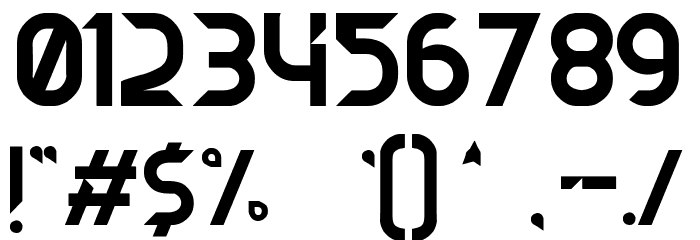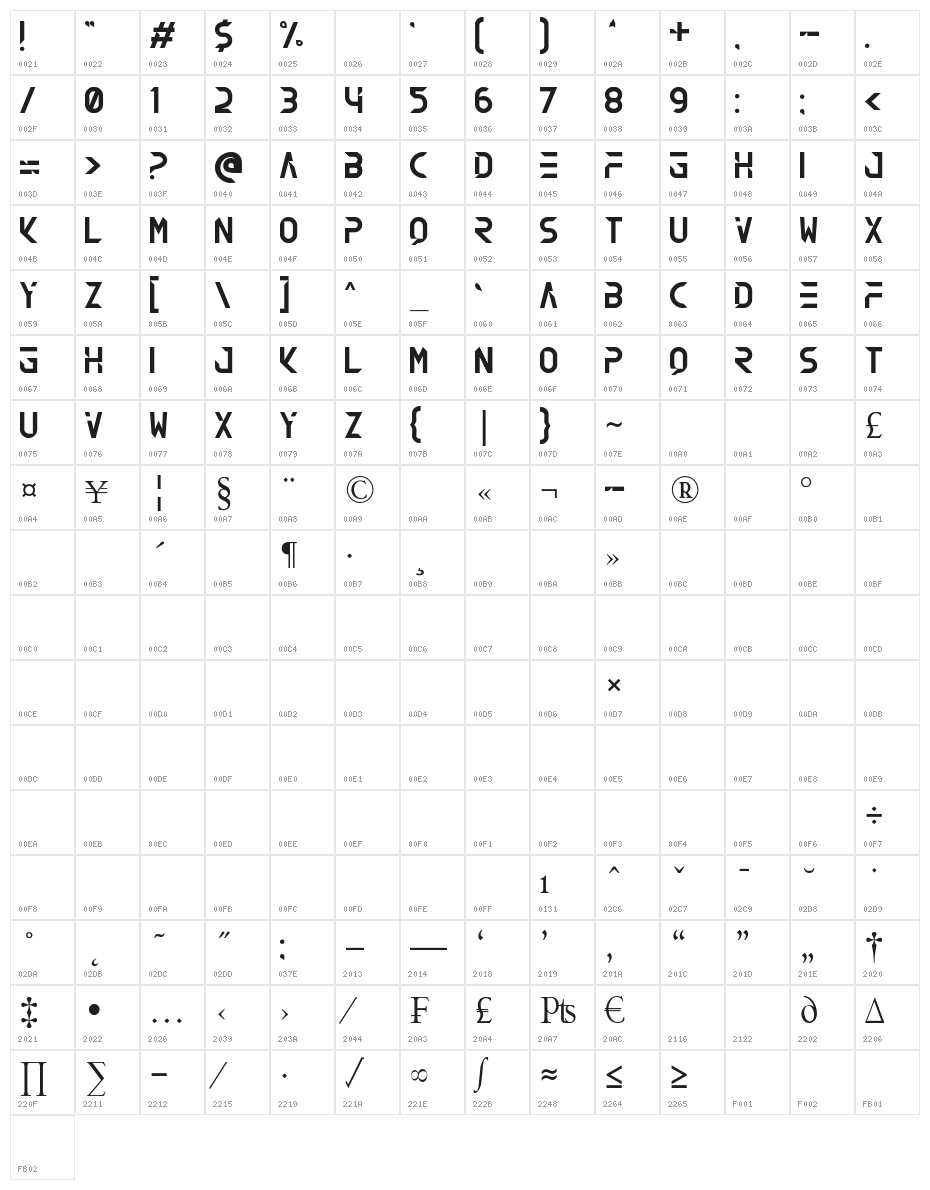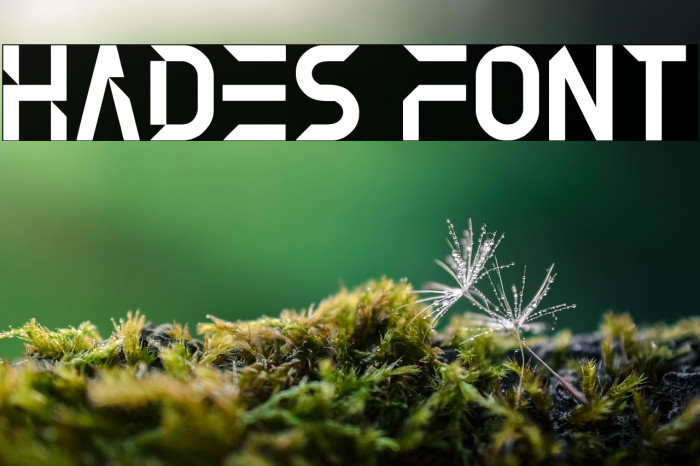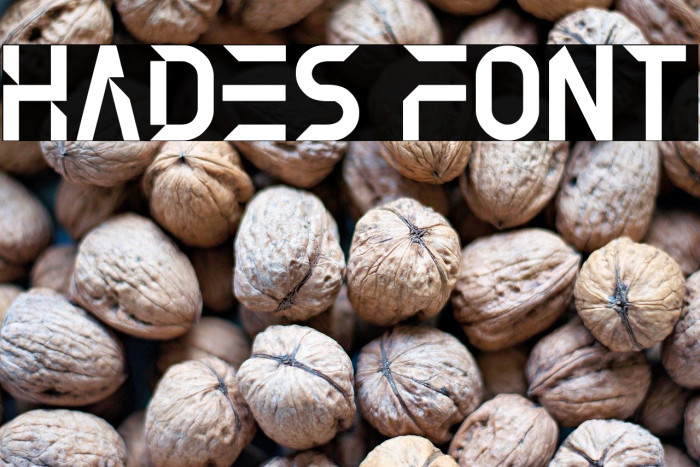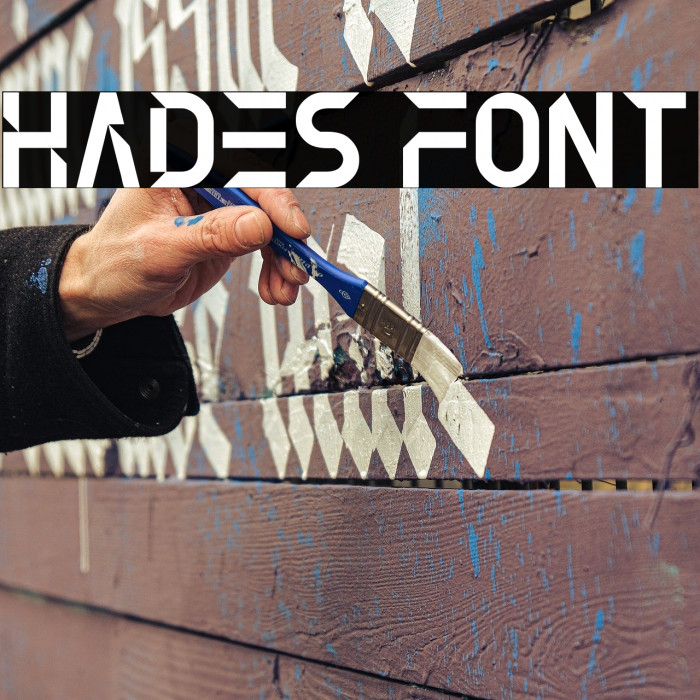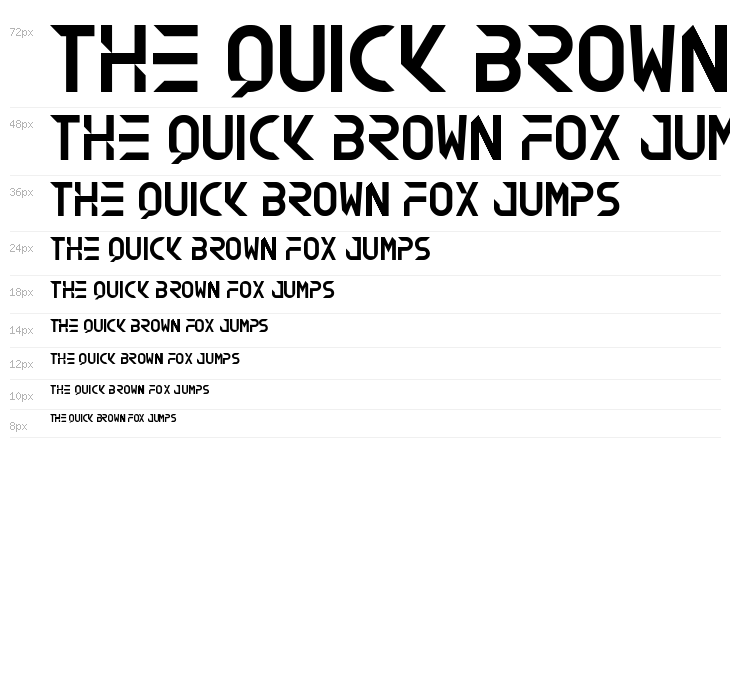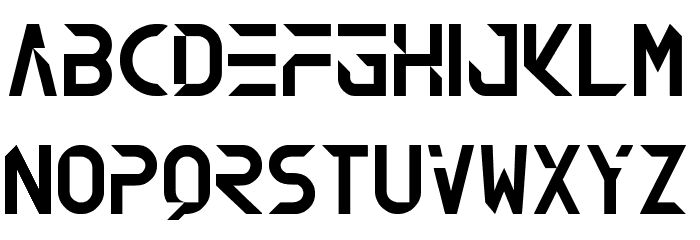
hades Font
hades Description
This font features a bold and futuristic design with sharp, angular edges and geometric shapes. The characters are constructed with a unique blend of straight lines and diagonal cuts, giving them a dynamic and edgy appearance. The uppercase letters are particularly striking, with a strong presence that commands attention. The numerals and special characters maintain the same bold style, ensuring consistency across all text. This font is ideal for projects that require a modern and impactful look, such as technology branding, sci-fi themes, or video game titles.
Overall StyleFuturistic
Proposed ProjectsIdeal for technology branding, sci-fi themes, video game titles, and modern advertising.